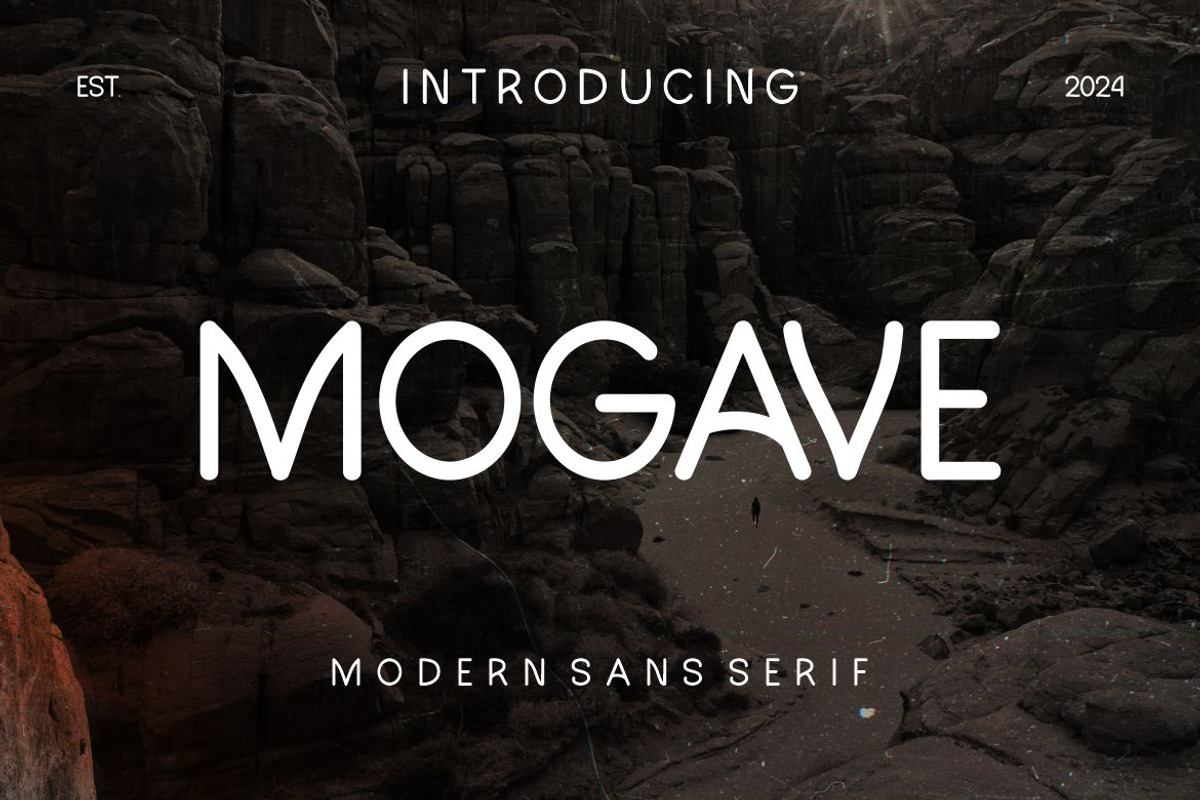
Mogave Sans Serif Font Free Download is a clean, modern, and versatile typeface designed for contemporary branding and minimalist design. With its crisp lines, geometric structure, and subtle personality, Mogave is perfect for logos, websites, product packaging, editorial layouts, and tech-focused graphics.
Its balanced proportions and excellent legibility make it ideal for both headlines and body text, whether in print or digital formats. Mogave brings a sense of clarity and professionalism to any project, making it a favorite among designers seeking a sleek, no-nonsense look.
This font is especially useful for startups, creative agencies, and lifestyle brands looking to establish a strong and modern visual identity.